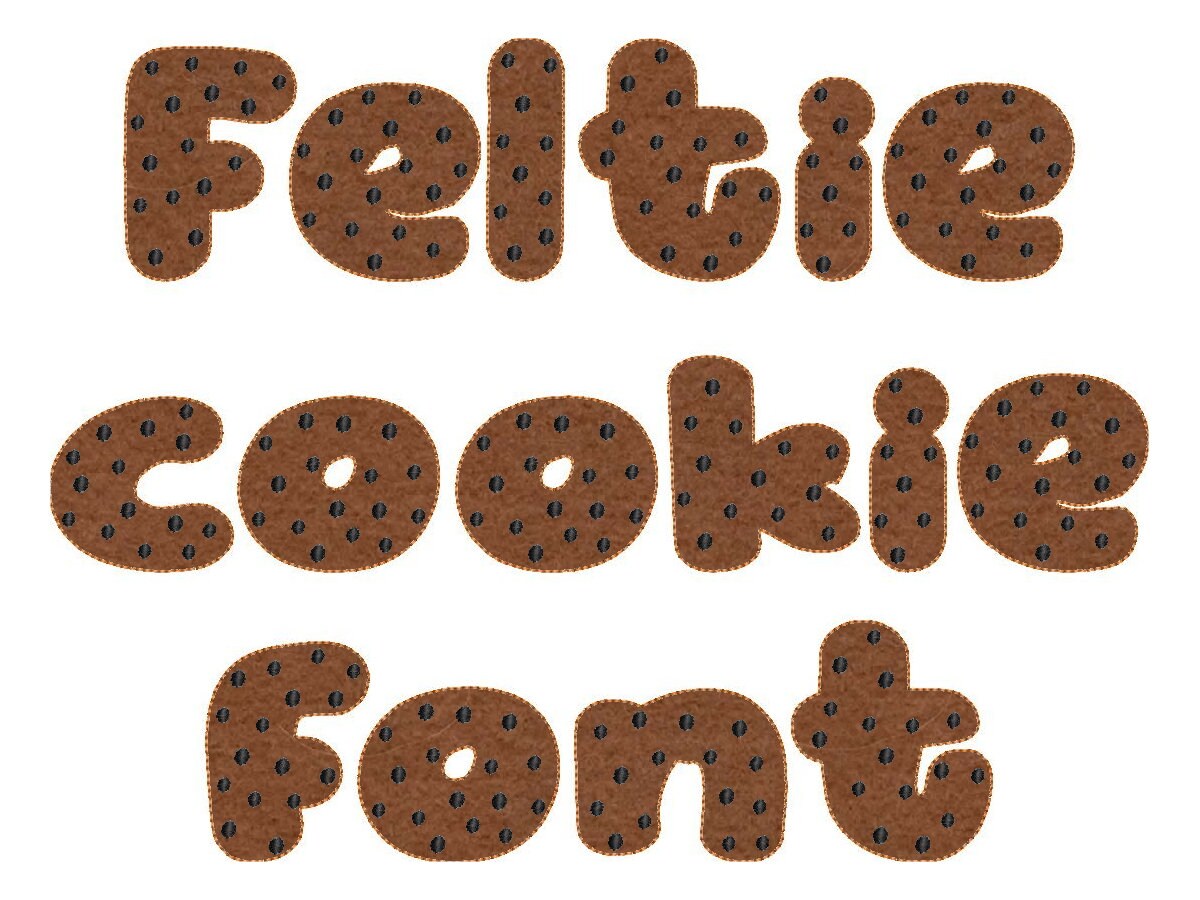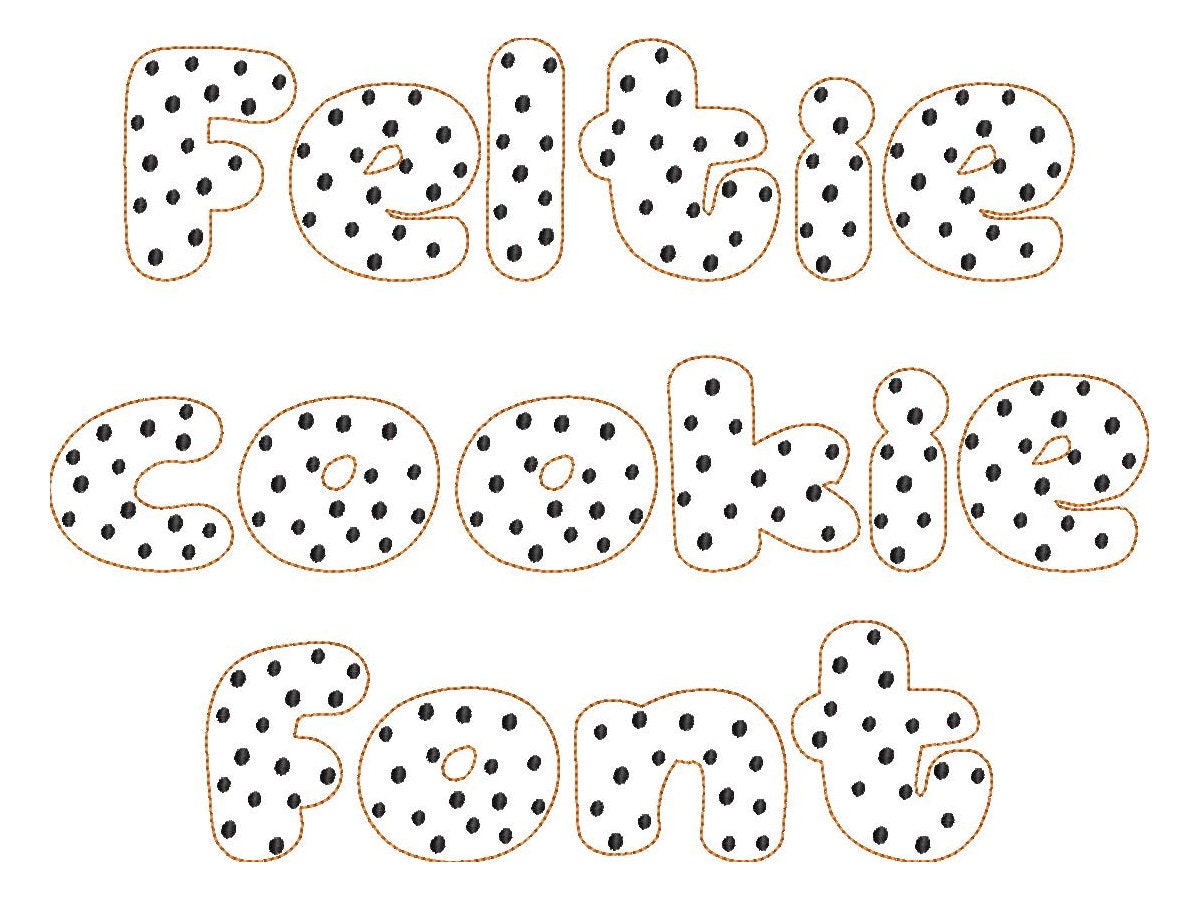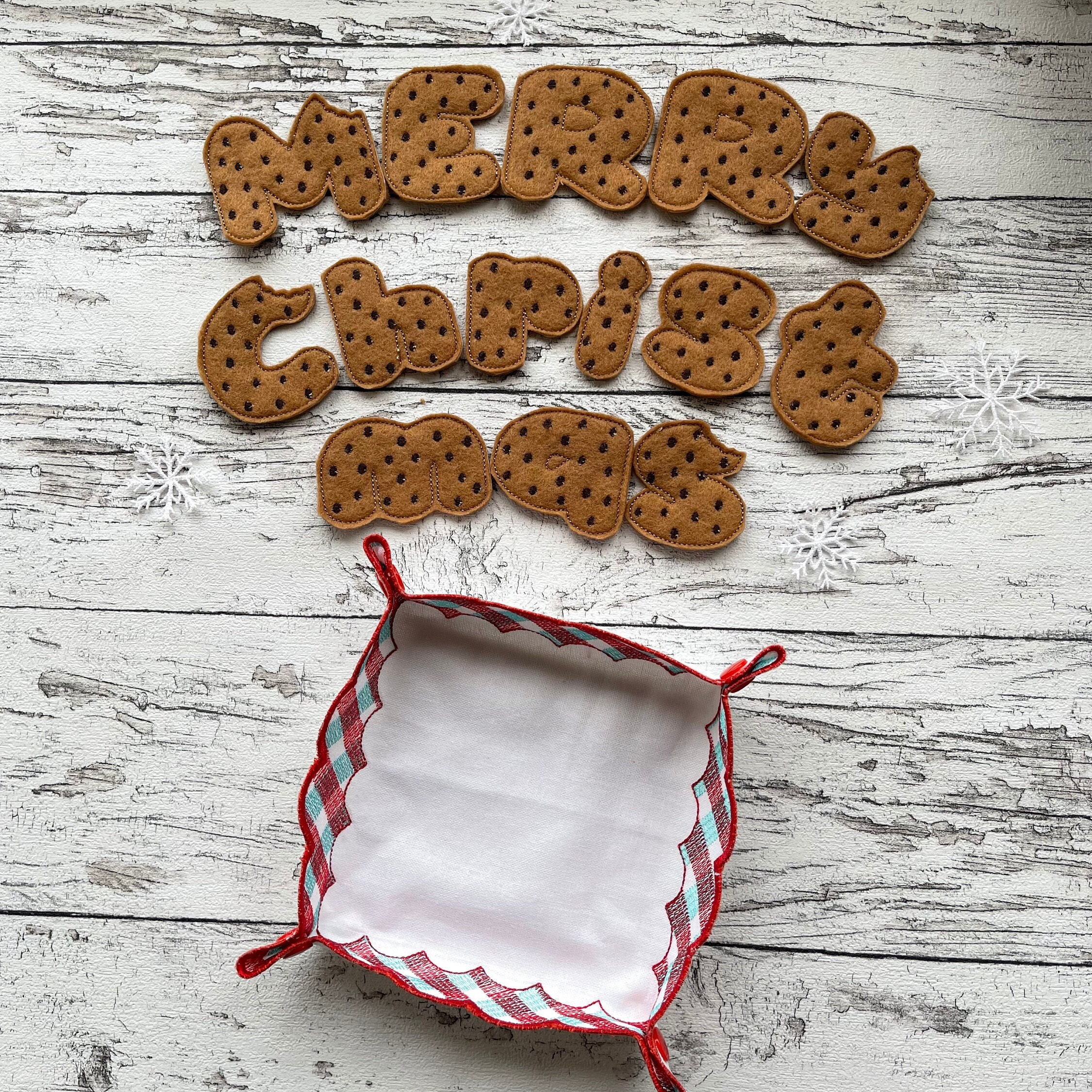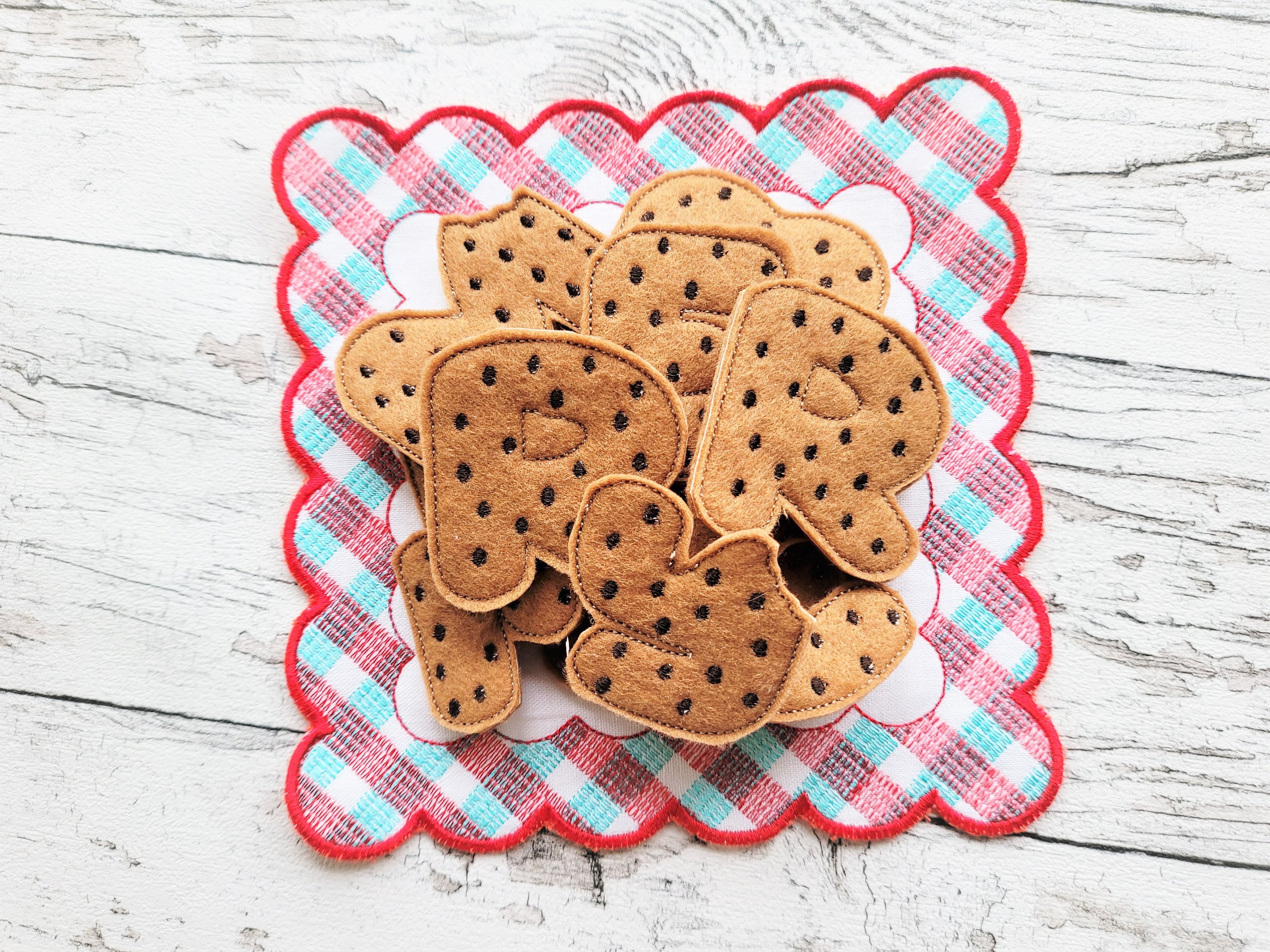
Chocolate Cookie FONT feltie alphabet, playful kids learn reading, use as feltie or applique, machine embroidery designs assorted sizes, BX included
Whole alphabet and numbers
uppercase A-Z, lowercase a-z, numbers 0-9, and special marks & . , - ? /